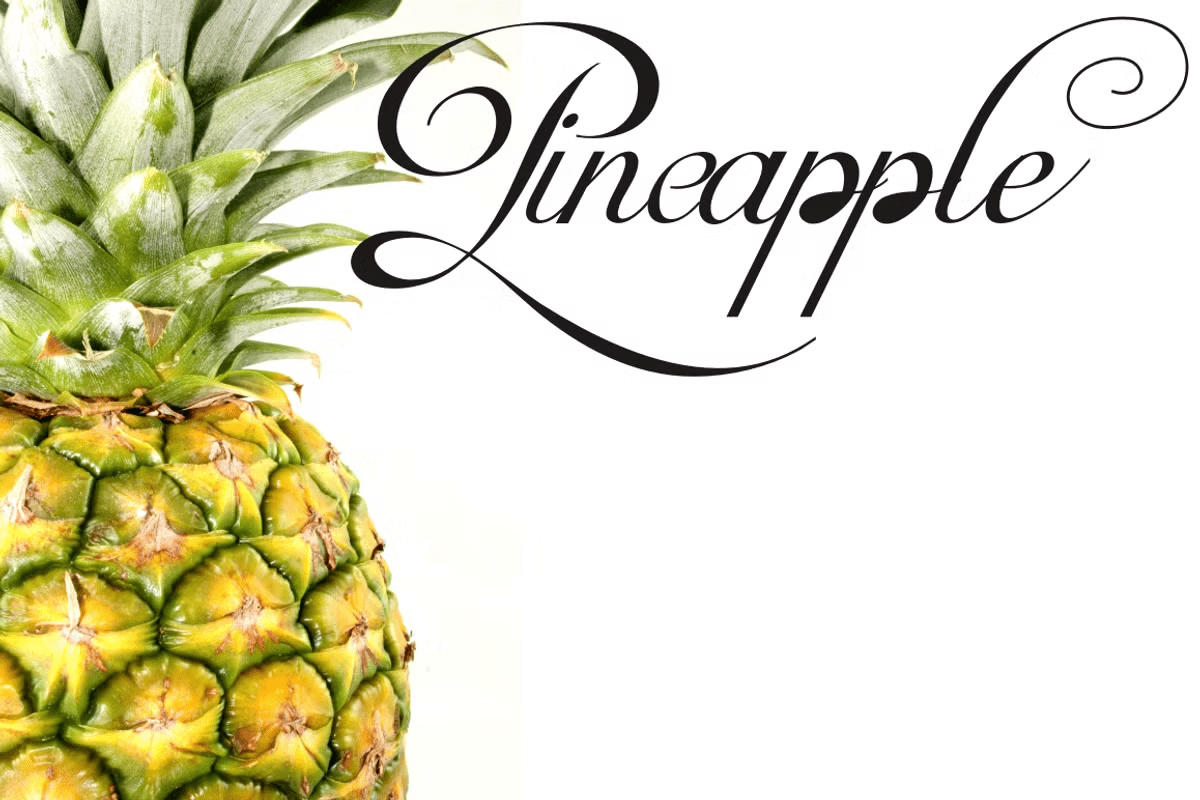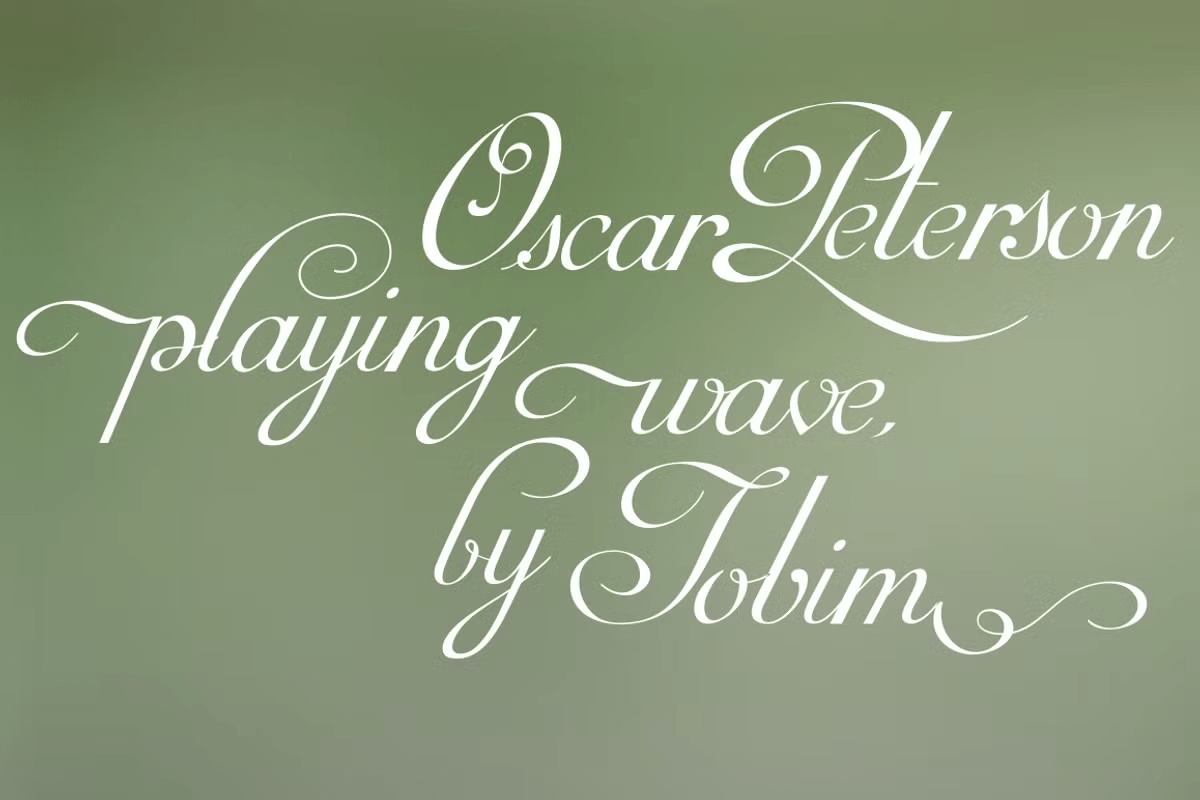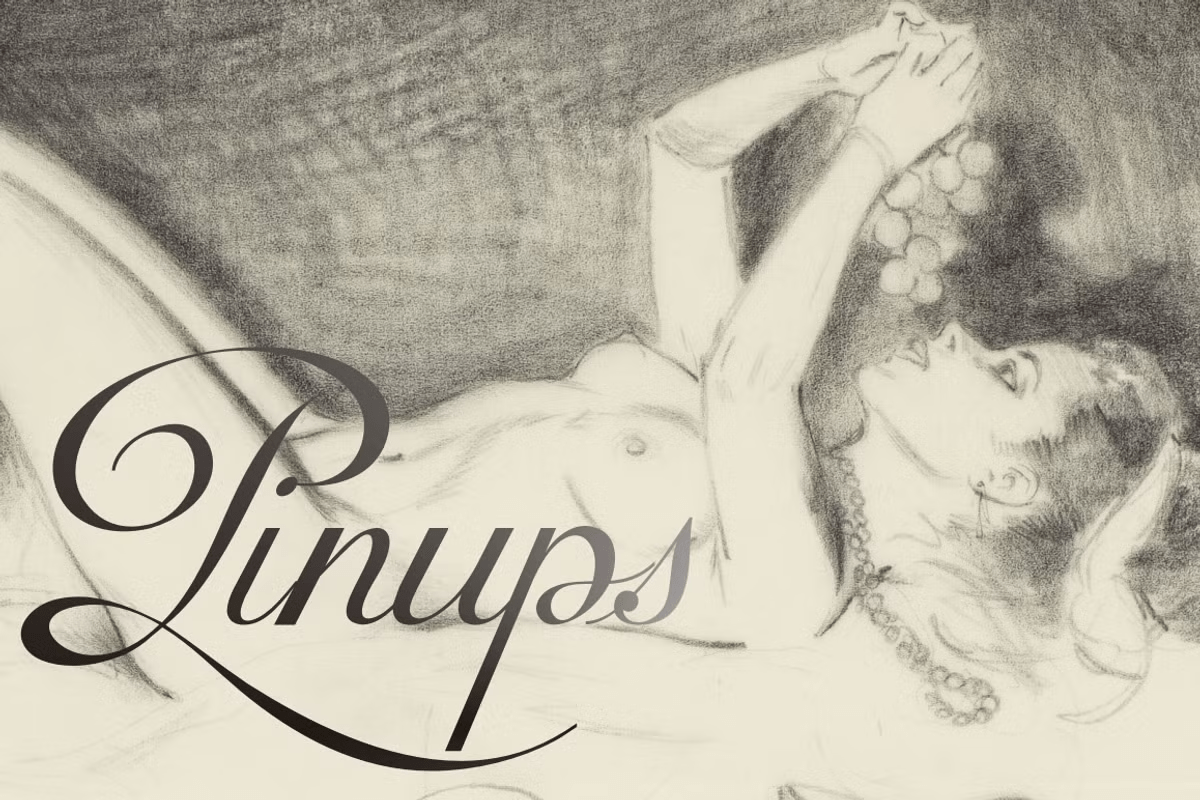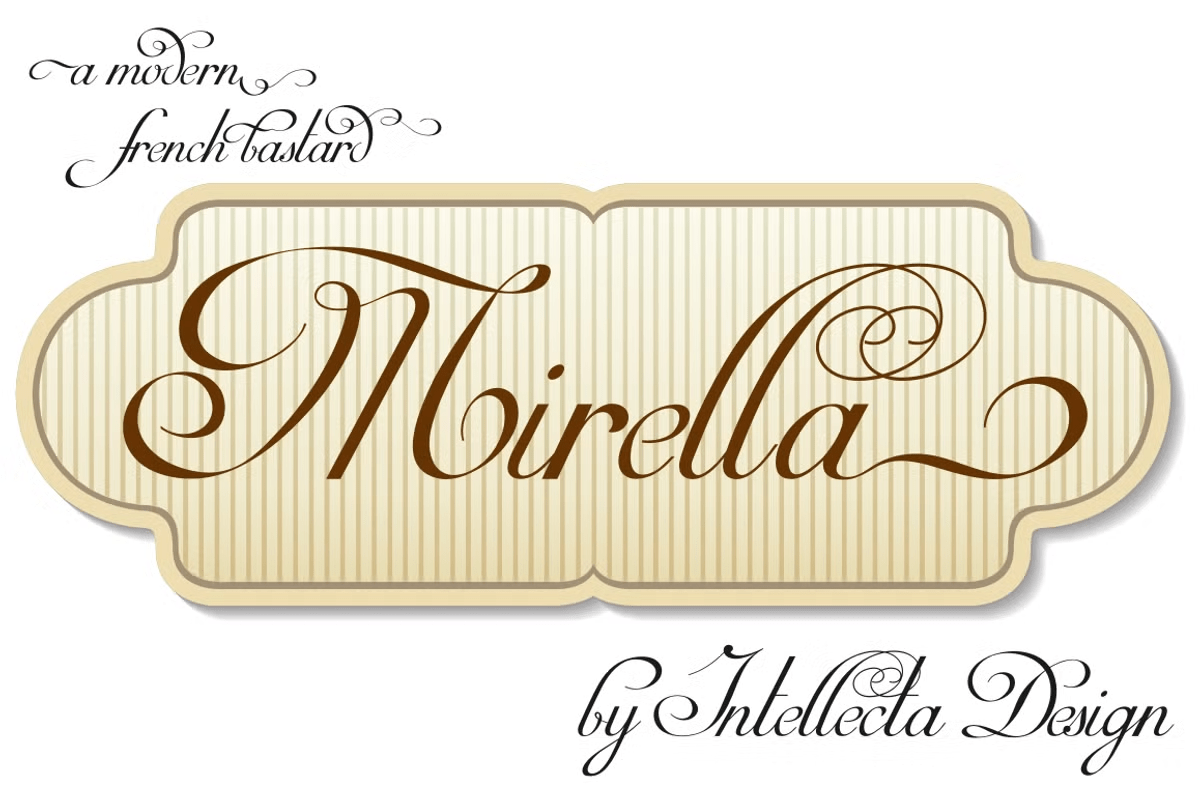
Mirella Script
About Mirella Script
Mirella Script is a modern and clean approach of the classic French Bastarde script style. Mirella has the follow resources : Lots os ligature forms (using contextual alternates open-type feature), many stylistic alternates for each letter (upper-…